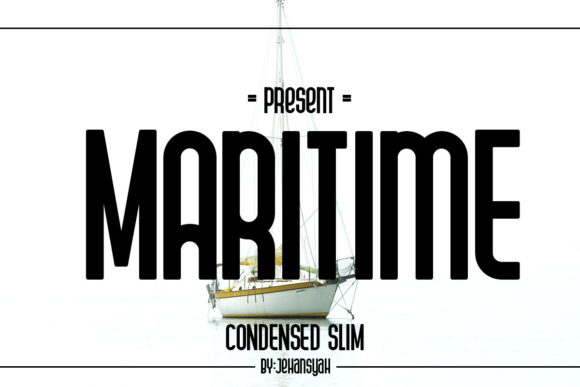
Behold Maritime Font, the epitome of typographic elegance and the ultimate choice for discerning designers seeking to make a profound impact with their creative endeavors. Step into a realm of visual artistry where letters dance with grace and purpose, captivating your audience with every stroke.
Crafted with meticulous precision, Maritime Font exudes a tall and slender profile, evoking a sense of sophistication and modernity. Its clean lines and minimalist aesthetic lend themselves effortlessly to a myriad of design projects, from captivating logos and eye-catching headlines to engaging presentations and immersive digital experiences.
Unleash your imagination and embark on a typographic adventure with Maritime Font. Let its inherent versatility guide you through the vast landscape of design possibilities. Whether you seek to craft a striking poster that commands attention, a website that exudes professionalism, or a social media campaign that sparks engagement, Maritime Font stands ready to elevate your vision.
Immerse yourself in the boundless creativity that awaits you with Maritime Font. Its sans serif design exudes a timeless charm, effortlessly blending with a symphony of visual elements to create designs that resonate with your audience.
With Maritime Font at your fingertips, you possess the power to transform mundane text into captivating narratives. Its graceful curves and sharp angles dance in perfect harmony, drawing the eye and igniting the imagination. Experience the joy of crafting designs that captivate and inspire, leaving a lasting impression on all who behold them.
Maritime Font is more than just a collection of letters; it's an invitation to embark on a creative journey where your ideas take center stage. As you mold and shape each character, you'll feel the words come alive, conveying your message with eloquence and impact.
Join the ranks of creative visionaries who have discovered the transformative power of Maritime Font. Embrace its versatility and let your imagination run wild as you create designs that transcend the ordinary and leave an indelible mark on the world.